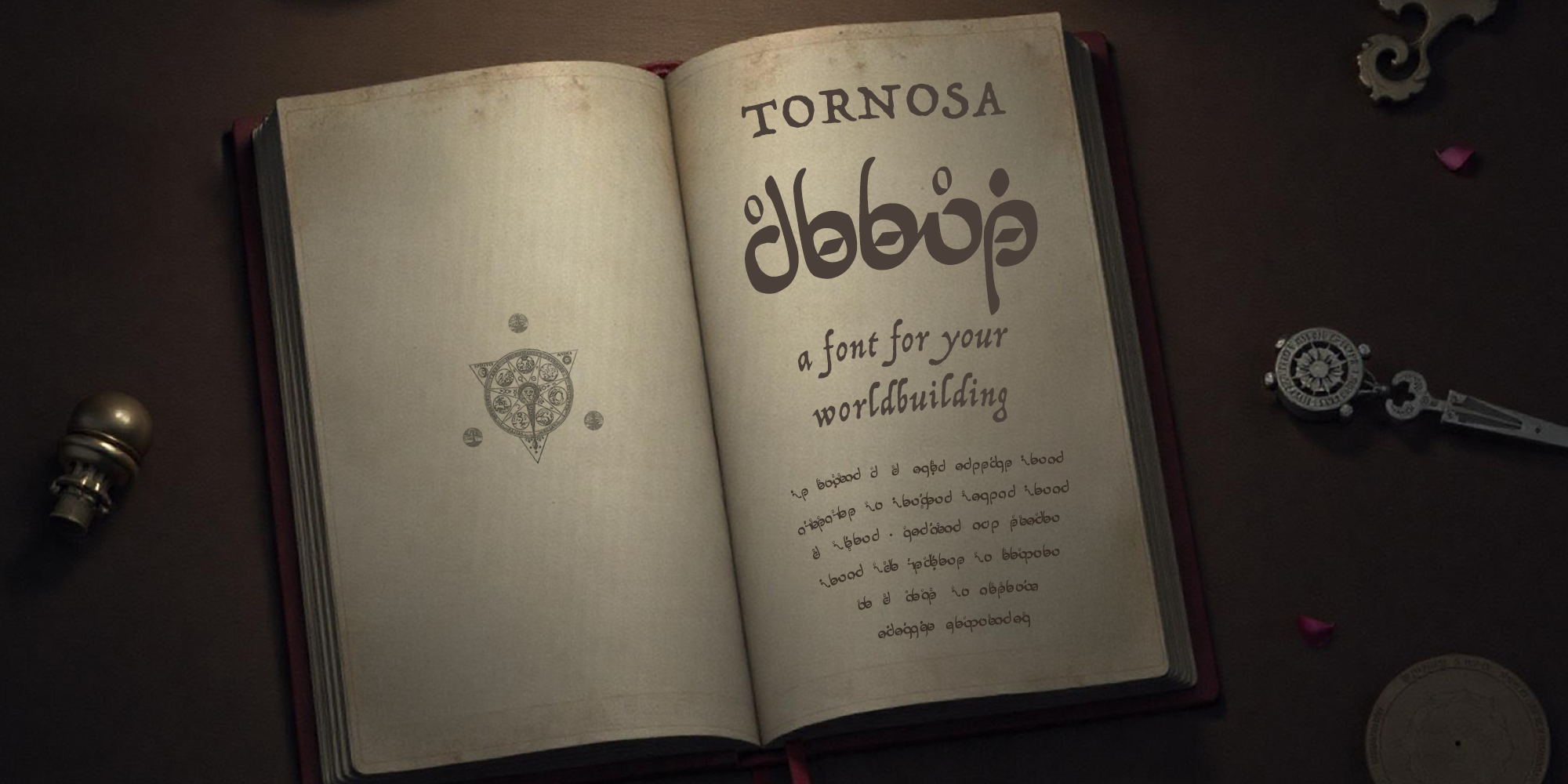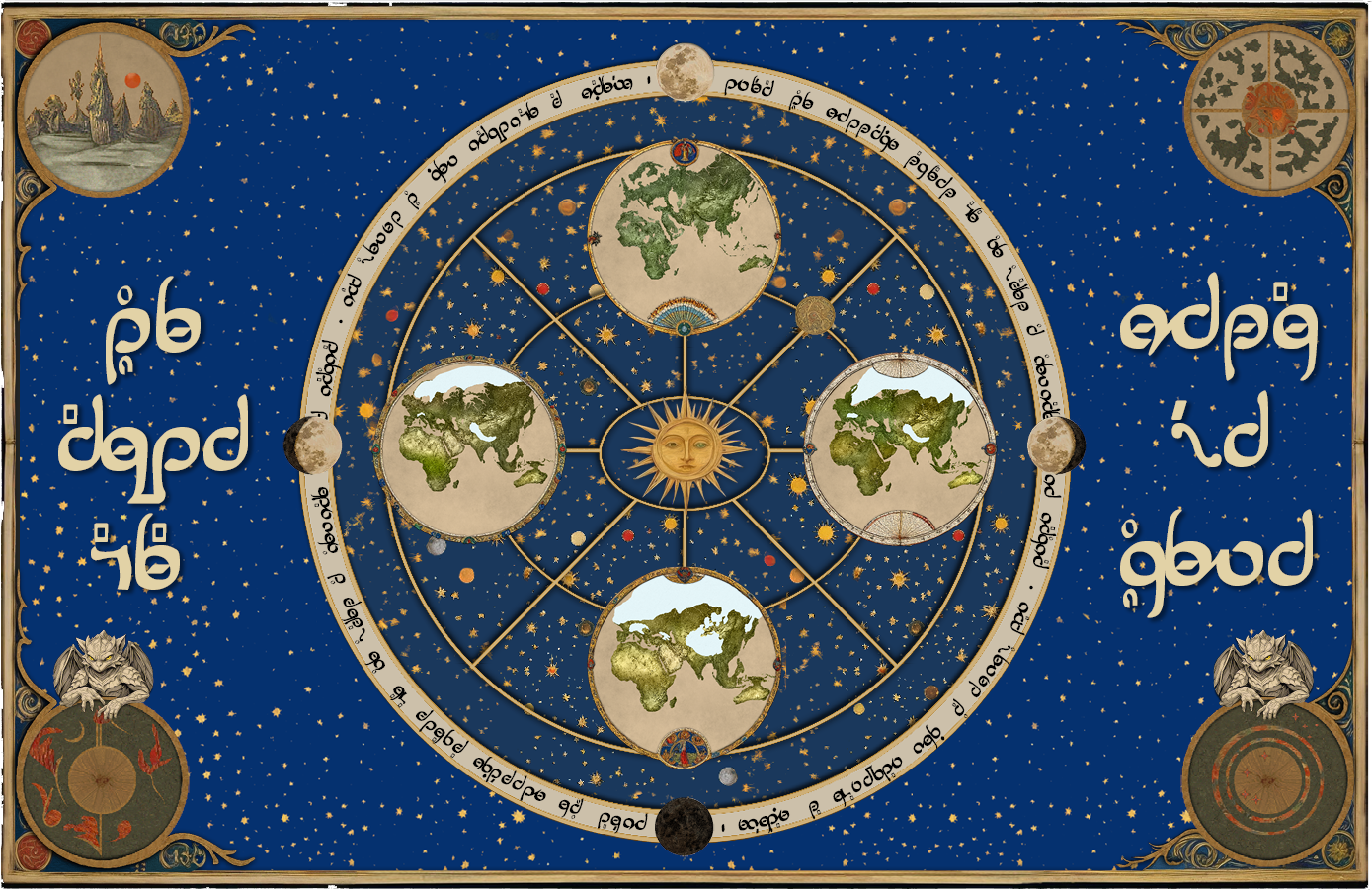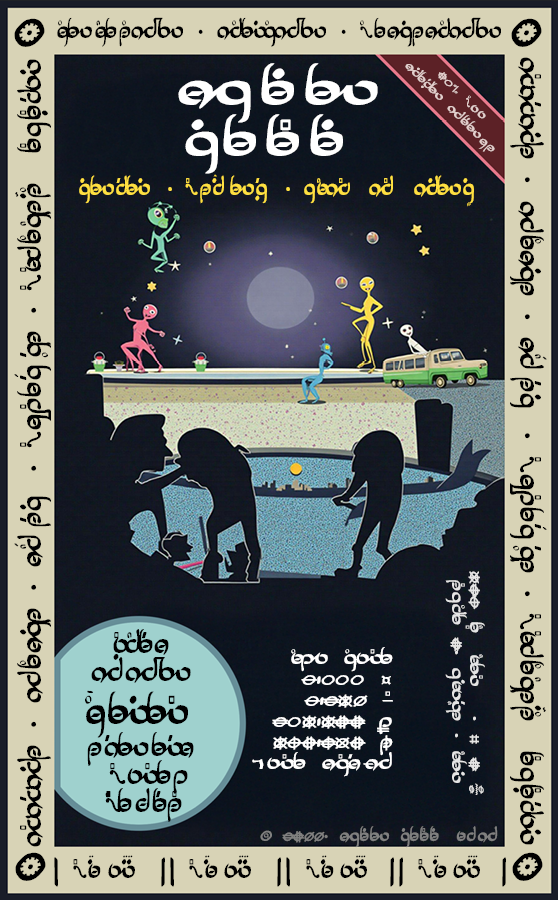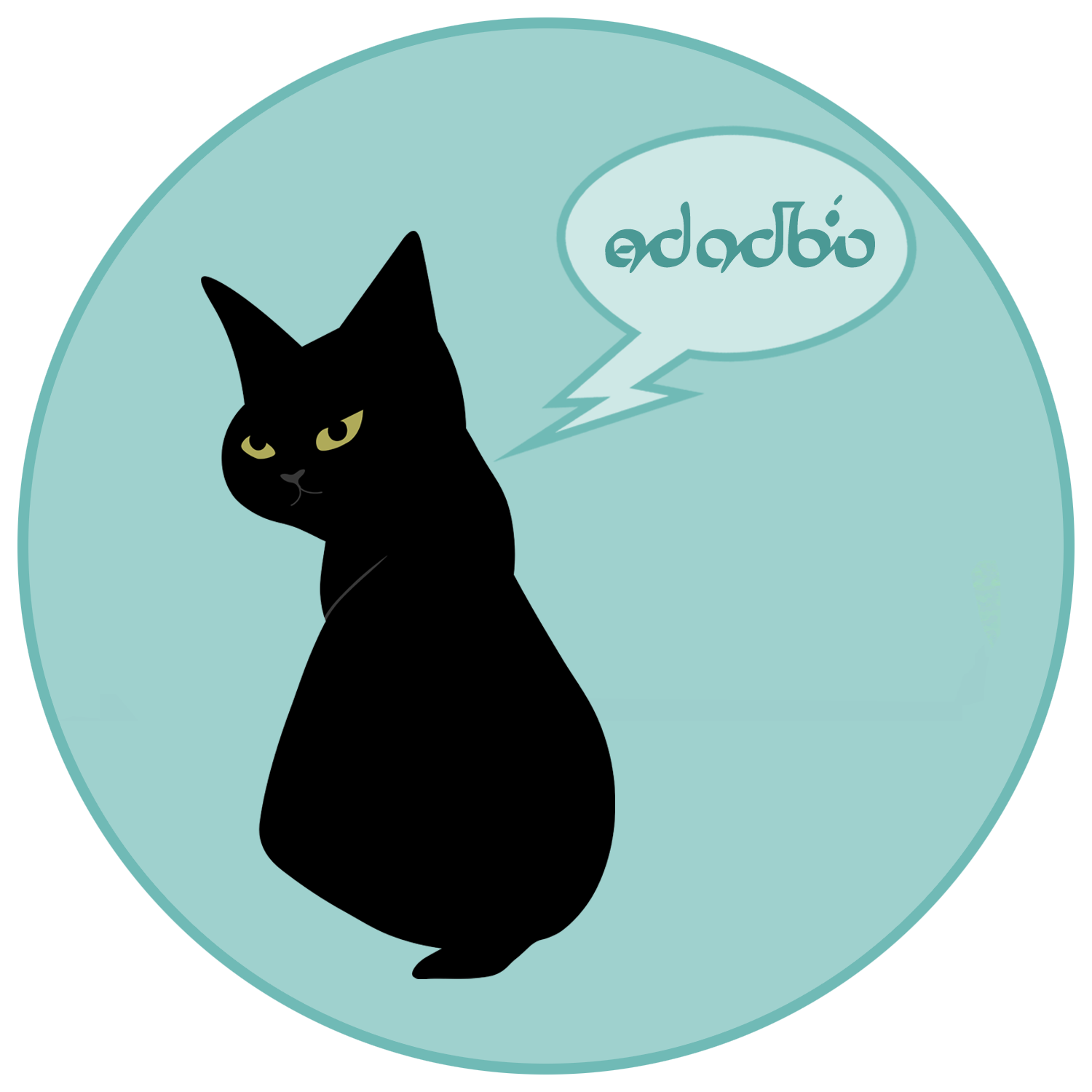
Summary
Tornos is an ancient word root that means to create with circles. It appears in modern languages in words that refer to polishing (rubbing in a circular motion) or using a lathe (a machine that fashions wood or metal into circular shapes). This is the essence of Tornosa: its repetition and symmetry make it pleasing to look at but difficult to read, like a baroque decorative design that hides deeper meaning behind its circular glyphs and complex decorations.
The Tornosa font forms a unique cypher alphabet that is perfect for use in fantasy, science fiction, and role-playing game scenarios. It can be used to create illustrations, props, and accessories for RPG campaigns or festivals with fantasy or science fiction themes. It can be used to add depth and complexity to your worldbuilding for your graphic novels, and in the illustrations for the fantasy or science fiction series you are writing.
Tornosa
Display